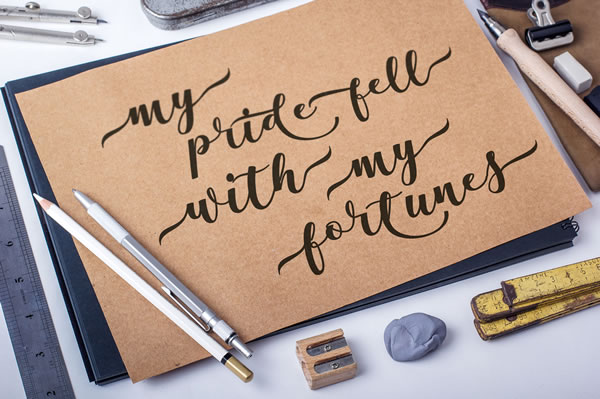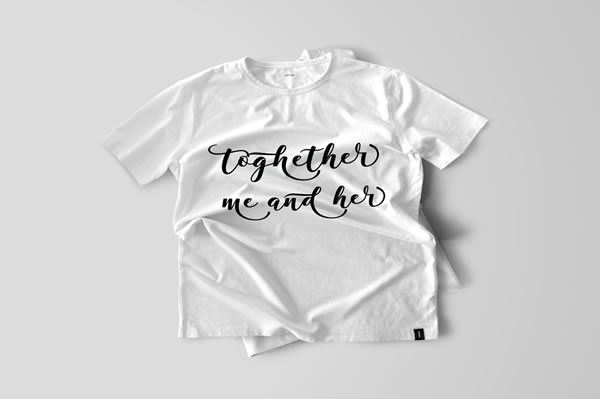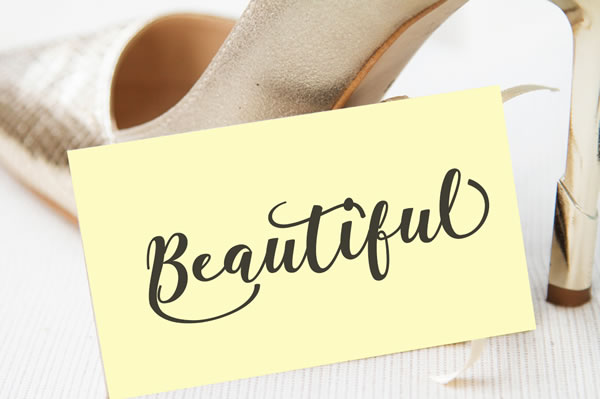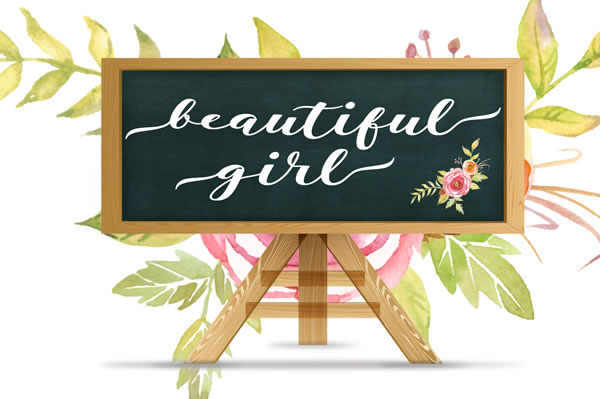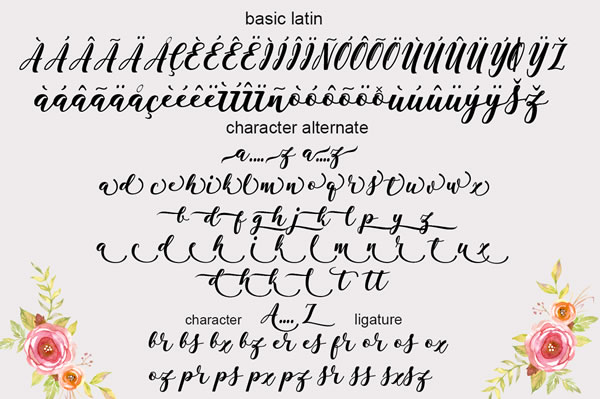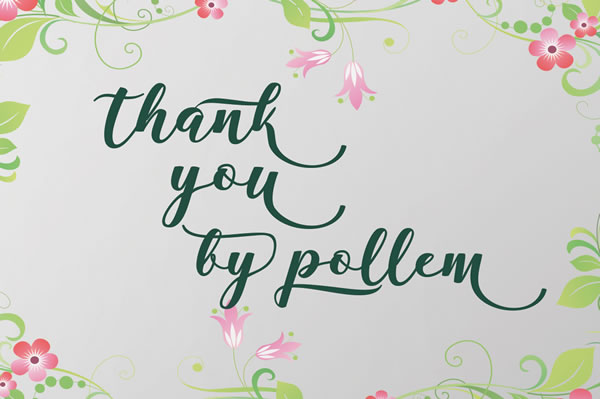
Antelope Font
About Antelope Font
The Antelope font is a modern calligraphy typeface that was completely designed by hand. It has a modern and unique look that feels very natural.
This font features:
Standard Ligatures
Stylistic Alternates
Contextual Alternates
Stylistic sets
Swashes